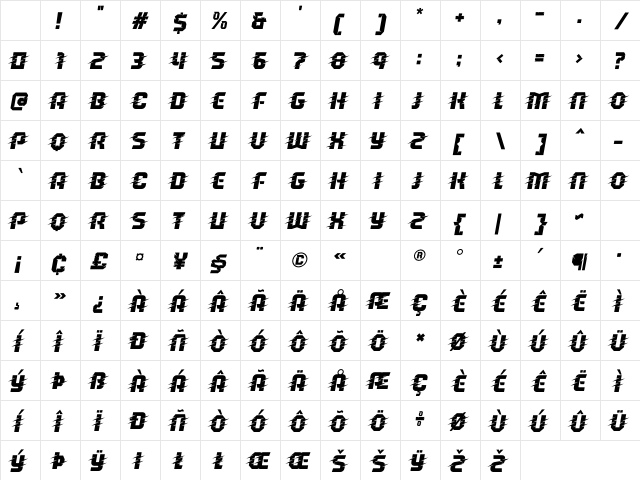
Complete Running Back Motion Italic glyph index. Displaying only characters natively supported by Running Back Motion Italic font.
Running Back is a composed and adaptable typeface that performs quietly and consistently across a wide range of design contexts. The slanted form adds forward momentum and visual energy.
Pro Tip: Use Running Back for emphasis, pull quotes, and subheadings where its slanted energy can add rhythm to the layout.